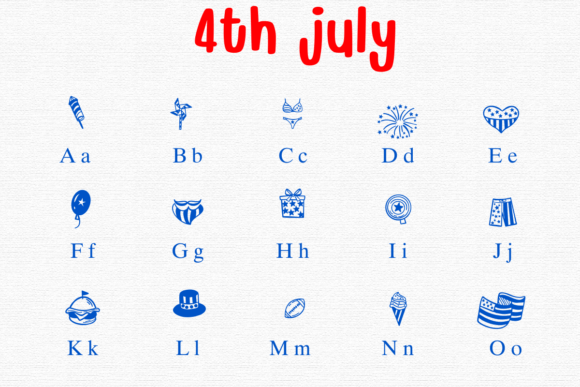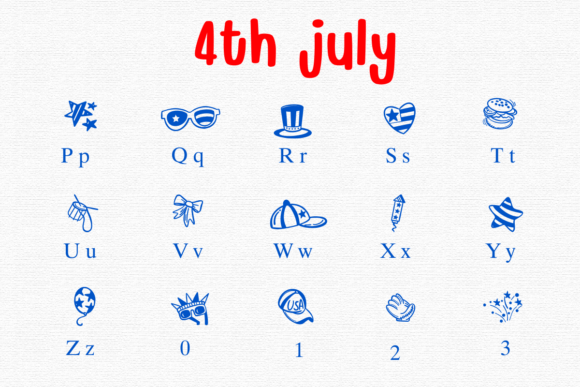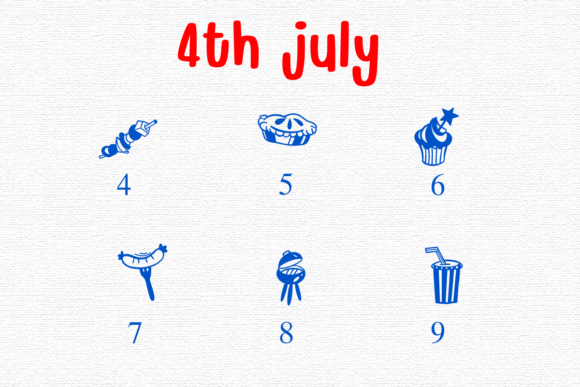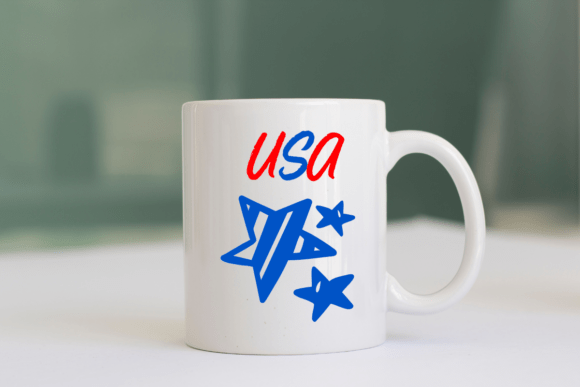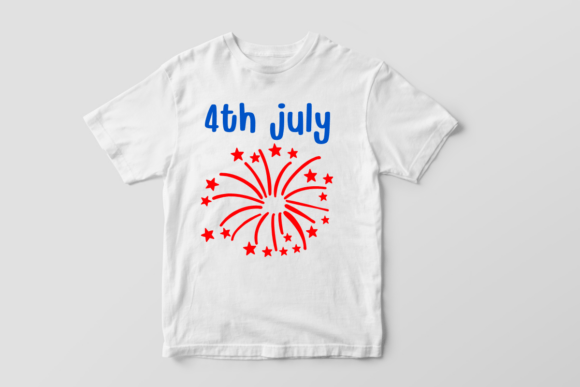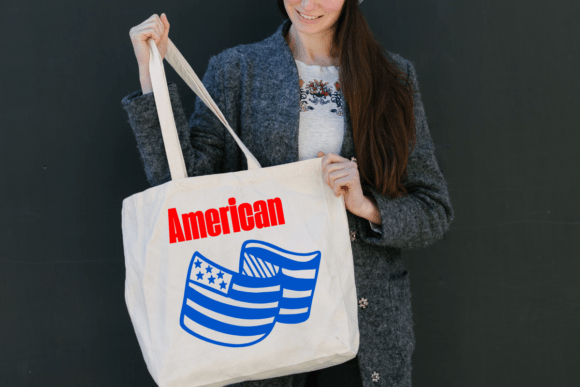
4th July Font: A Patriotic Dingbats Font for Independence Day Celebrations
The 4th of July, also known as Independence Day, is a day of celebration for Americans around the world. It’s a day to commemorate the adoption of the Declaration of Independence and to showcase patriotism. One way to add a touch of patriotism to your designs, crafts, and party invitations is by using a unique and festive font. Introducing the 4th July Font, a patriotic dingbats font that features red, white, and blue icons perfect for Independence Day celebrations.
What is the 4th July Font?
The 4th July Font is a dingbats font that is specifically designed to capture the spirit of Independence Day. This font features a wide range of icons, including fireworks, flags, stars, BBQs, and American symbols. These icons are designed to be used in various designs, from party invitations to crafts, and even USA-themed decor. The font is available in a variety of formats, making it easy to use on different devices and design software.
Key Features of the 4th July Font
- Patriotic Icons: The font features a wide range of patriotic icons, including fireworks, flags, stars, and American symbols.
- Red, White, and Blue Color Scheme: The icons are designed in a red, white, and blue color scheme, making them perfect for Independence Day celebrations.
- Dingbats Font: The font is a dingbats font, making it easy to use and customize.
- Versatile: The font can be used in various designs, from party invitations to crafts, and even USA-themed decor.
Uses of the 4th July Font
The 4th July Font is a versatile font that can be used in various designs and projects. Here are some ideas:
- Party Invitations: Use the font to create festive party invitations that will set the tone for your Independence Day celebration.
- Independence Day Crafts: Use the font to create patriotic crafts, such as DIY decorations, garlands, and cards.
- USA-Themed Decor: Use the font to create USA-themed decor, such as banners, signs, and wall art.
- Social Media Graphics: Use the font to create social media graphics, such as Facebook posts, Instagram stories, and Twitter headers.
Benefits of Using the 4th July Font
Using the 4th July Font has several benefits, including:
- Unique and Festive: The font adds a unique and festive touch to your designs and projects.
- Easy to Use: The font is easy to use and customize, making it perfect for designers and crafters of all levels.
- Versatile: The font can be used in various designs and projects, making it a great value.
- Patriotic: The font is a great way to showcase patriotism and add a touch of American spirit to your designs and projects.
The 4th July Font is a patriotic dingbats font that is perfect for Independence Day celebrations. With its wide range of patriotic icons, red, white, and blue color scheme, and versatility, this font is a great addition to any designer’s or crafter’s toolkit. Whether you’re creating party invitations, crafts, or USA-themed decor, this font is sure to add a unique and festive touch. So why not give it a try and add some patriotic flair to your designs and projects?